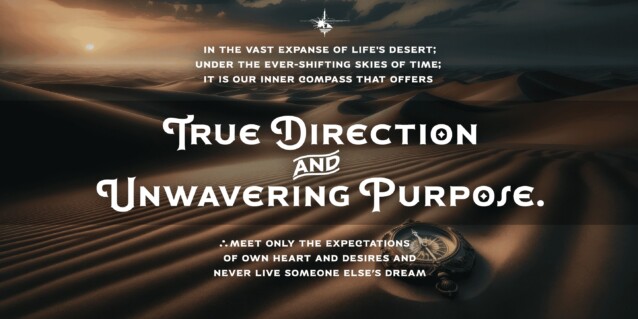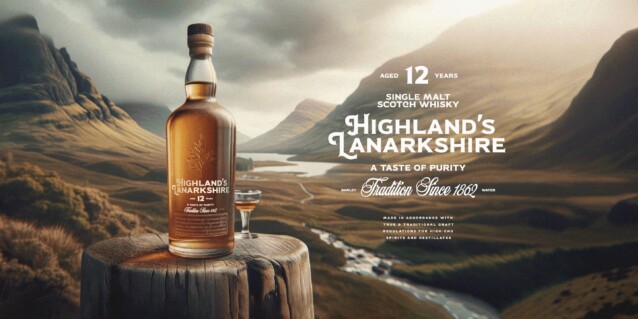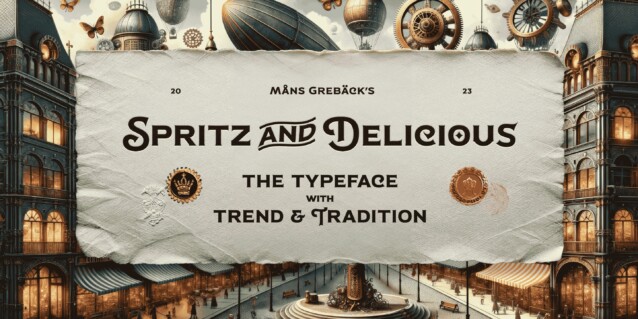
Spritz And Delicious Font
Spritz And Delicious Font is a simple-looking retro inspired display serif with enough twist to make it interesting. Spritz And Delicious represented luxury, glamour, exuberance, and faith in social and technological progress. Spritz And Delicious has pretty much alternatives glyphs choice in the pack and support multilingual.